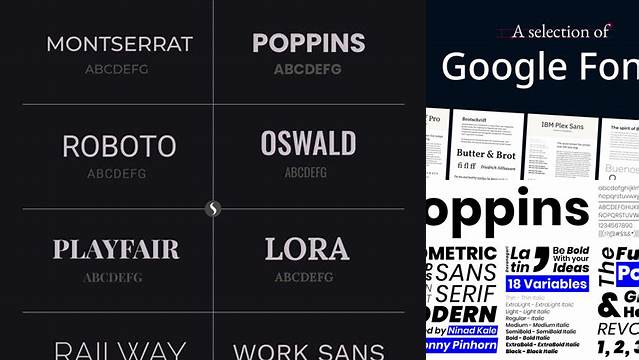
Top Google Fonts For Killer Typography
Hey guys! Ever wondered what makes some designs pop while others just... flop? A huge part of it is typography! Choosing the right font can make or break your design, and thankfully, Google Fonts has a treasure trove of amazing options. Let’s dive into some of the best Google Fonts for typography that'll help you create stunning visuals.
1. Serif Fonts for a Classic Look
When you're aiming for a timeless and sophisticated feel, serif fonts are your best friends. These fonts, characterized by the small strokes or “serifs” at the end of each character, evoke a sense of tradition and elegance. Best Google Fonts for typography often include standout serifs that can elevate your text from ordinary to extraordinary. Think about fonts like Times New Roman, but let’s explore Google’s offerings that bring a fresh twist to this classic style. Using serif fonts in headings and body text can provide a professional and readable experience, making your content more engaging.
Making Serif Fonts Work for You
To truly leverage the power of serif fonts, consider the context of your design. Are you working on a website for a law firm, a historical society, or a high-end fashion brand? Serif fonts can communicate the authority and sophistication needed for these industries. Experiment with different weights and styles to find the perfect match. Remember, the goal is to create a visual hierarchy that guides the reader through your content seamlessly. The best Google Fonts for typography in the serif category do just that – they help you tell your story with clarity and style.
Why Serif Fonts Still Matter
In a world dominated by sleek, sans-serif fonts, serif fonts hold their own by offering a unique sense of character. They're not just relics of the past; they're powerful tools that can add depth and personality to your designs. Don't be afraid to mix and match serif fonts with sans-serif fonts to create a balanced and visually appealing layout. When used thoughtfully, serif fonts can be a game-changer, ensuring your typography is both beautiful and functional. So, let’s explore which serif options from Google Fonts will help you nail that best Google Fonts for typography look.
2. Sans-Serif Fonts for Modern Designs
Sans-serif fonts are the workhorses of the modern web. Clean, minimalist, and incredibly versatile, they’re perfect for a wide range of projects. If you’re aiming for a contemporary and approachable vibe, sans-serif fonts are your go-to. The best Google Fonts for typography in the sans-serif category are those that offer excellent readability and a touch of personality. These fonts shine in both headings and body text, providing a sleek and consistent look. Choosing the right sans-serif font can make your website or design feel modern, clean, and professional.
Leveraging the Versatility of Sans-Serif Fonts
One of the greatest strengths of sans-serif fonts is their adaptability. They work seamlessly across various mediums, from websites and mobile apps to print materials and branding. The key is to select a font that aligns with your brand's identity and the overall message you want to convey. Whether you need something bold and impactful or subtle and elegant, there's a sans-serif font out there for you. Keep in mind that the best Google Fonts for typography provide a wide range of weights and styles, giving you the flexibility to create visual interest and hierarchy within your designs.
Sans-Serif: The Go-To for Digital Readability
In the digital world, readability is paramount. Sans-serif fonts excel in this area, thanks to their clear and straightforward letterforms. They render well on screens of all sizes, ensuring your text is legible and engaging. When you’re thinking about the best Google Fonts for typography for web design, sans-serif options should be at the top of your list. They’re not just about aesthetics; they’re about creating a user-friendly experience. So, let's take a look at some specific sans-serif fonts that can help you achieve that perfect balance of style and functionality.
3. Best Font Pairings on Google Fonts
Font pairings are like the dynamic duos of typography. Combining different fonts can add depth, contrast, and visual interest to your designs. But choosing the right pairings can be tricky. The best Google Fonts for typography often come alive when paired strategically. A classic combination is a serif font for headings and a sans-serif font for body text, or vice versa. This creates a clear hierarchy and makes your content easier to read and more engaging. Think of it as creating a harmonious balance between tradition and modernity.
The Art of Mixing and Matching Fonts
The key to successful font pairings lies in contrast and complementarity. You want fonts that have enough differences to create visual interest but also share some common characteristics to ensure they look cohesive. For example, you might pair a bold, impactful serif font with a light, airy sans-serif font. The best Google Fonts for typography are those that work well together, creating a balanced and visually appealing composition. Don’t be afraid to experiment, but always prioritize readability and clarity.
Real-World Examples of Great Font Pairings
To get a better sense of how font pairings work, let’s look at some practical examples. A popular combination is Montserrat (sans-serif) for headings and Roboto (sans-serif) for body text. This pairing provides a clean, modern look. Another great option is Playfair Display (serif) for headings and Open Sans (sans-serif) for body text, offering a blend of elegance and readability. Remember, the best Google Fonts for typography pairings are those that enhance your message and create a memorable visual experience. So, let’s explore some specific pairings that can take your design to the next level.
4. Roboto: The Versatile Workhorse
Roboto is one of Google's flagship fonts, and for good reason. This sans-serif font is incredibly versatile, making it a fantastic choice for a wide range of applications. If you're looking for the best Google Fonts for typography that can handle everything from headings to body text, Roboto should be on your radar. Its clean, geometric design ensures excellent readability on screens of all sizes, and its various weights and styles give you plenty of flexibility. Whether you're designing a website, an app, or print materials, Roboto can deliver a professional and modern look.
Why Roboto Stands Out
What sets Roboto apart is its ability to blend seamlessly into different design contexts. It's not overly stylized or trendy, which means it won't clash with your brand's identity. Instead, it provides a solid foundation upon which you can build your design. The best Google Fonts for typography are those that prioritize functionality without sacrificing aesthetics, and Roboto excels in this regard. Its open forms and natural reading rhythm make it a pleasure to read, ensuring your audience stays engaged with your content.
Getting the Most Out of Roboto
To truly appreciate the versatility of Roboto, experiment with its different weights and styles. Use the bold weights for headings to create impact, and the lighter weights for body text to ensure readability. You can also pair Roboto with other fonts to create visual interest. A classic combination is Roboto for body text and a serif font like Merriweather for headings. When used thoughtfully, Roboto can be the backbone of your typography, helping you create a cohesive and professional design. So, when you're thinking about the best Google Fonts for typography, remember Roboto – it's a reliable and stylish choice.
5. Open Sans: The Reader-Friendly Choice
Open Sans is another standout sans-serif font in the Google Fonts library, known for its exceptional readability. If you prioritize a clean, friendly, and accessible typeface, Open Sans is a top contender. For the best Google Fonts for typography that aim to keep readers engaged, Open Sans's open forms and neutral appearance make it an excellent option for body text. Its design focuses on clarity and legibility, making it a go-to choice for websites, apps, and print materials alike. When you want your content to be easily digestible, Open Sans ensures your message gets across clearly.
The Secret to Open Sans’s Readability
Open Sans was specifically designed with readability in mind, which is why it works so well in a variety of contexts. Its letterforms are clear and distinct, making it easy to read even at small sizes. This is crucial for web design, where text needs to be legible on different screen sizes and resolutions. The best Google Fonts for typography understand the importance of accessibility, and Open Sans delivers on this front. Its neutral tone also means it pairs well with many other fonts, giving you plenty of flexibility in your designs.
Maximizing the Impact of Open Sans
To make the most of Open Sans, consider using it in body text where readability is paramount. Its clean lines and open shapes ensure that your content is easy on the eyes. You can also use Open Sans for headings to maintain a consistent look throughout your design. If you want to create contrast, pair Open Sans with a more decorative font for headings. Remember, the best Google Fonts for typography are those that enhance your message without distracting from it. Open Sans achieves this balance beautifully, making it a reliable choice for any project.
6. Lato: The Modern and Elegant Option
Lato is a sans-serif font that strikes a perfect balance between modernity and elegance. With its semi-rounded details, Lato conveys a warm and friendly vibe while maintaining a professional look. If you’re searching for the best Google Fonts for typography that offer a contemporary feel without sacrificing readability, Lato is an excellent choice. Its versatility makes it suitable for a wide range of applications, from websites and marketing materials to presentations and branding. Lato’s subtle personality adds a touch of sophistication to any design.
The Unique Charm of Lato
What makes Lato stand out is its attention to detail. The semi-rounded letterforms give it a softer, more approachable feel compared to other sans-serif fonts. This makes Lato a great option for brands that want to convey a sense of friendliness and professionalism. The best Google Fonts for typography often have subtle nuances that make them unique, and Lato is no exception. Its clean lines and balanced proportions ensure readability, while its gentle curves add a touch of personality.
Using Lato to Its Full Potential
Lato’s versatility means you can use it in a variety of ways. It works well for both headings and body text, making it a reliable choice for creating a cohesive design. You can also pair Lato with other fonts to create contrast and visual interest. For example, Lato pairs beautifully with serif fonts like Merriweather or Playfair Display. The best Google Fonts for typography are those that adapt to your design needs, and Lato’s flexibility makes it a valuable addition to your font toolkit. So, if you’re looking for a modern and elegant font that’s easy to read, Lato is definitely worth considering.
7. Montserrat: The Bold and Geometric Choice
Montserrat is a sans-serif font with a strong geometric design, inspired by the urban typography of Buenos Aires. Its bold and modern look makes it a popular choice for headings, logos, and branding. For those seeking the best Google Fonts for typography that command attention, Montserrat's clean lines and strong presence make it a standout option. Its distinct character adds a touch of sophistication to any project, making it ideal for websites, posters, and marketing materials. If you want your typography to make a statement, Montserrat delivers with style.
What Makes Montserrat Stand Out
Montserrat's geometric structure gives it a contemporary and impactful feel. Its letterforms are bold and well-defined, ensuring excellent readability even at smaller sizes. This font’s distinct personality sets it apart from more neutral sans-serif options, making it perfect for projects that need a touch of flair. The best Google Fonts for typography often have a unique identity, and Montserrat’s urban-inspired design gives it a strong visual presence. Its versatility allows it to work well in both digital and print contexts.
Leveraging Montserrat’s Boldness
To truly leverage Montserrat’s impact, use it strategically in your designs. Its bold nature makes it ideal for headings and titles, where it can capture the reader’s attention. Montserrat also works well for logos and branding materials, helping you create a strong visual identity. When used in body text, it’s best to pair it with a lighter font to ensure readability. Remember, the best Google Fonts for typography are those that enhance your message, and Montserrat’s bold character can add a touch of sophistication to your designs. So, if you’re looking for a font that’s both modern and impactful, Montserrat is an excellent choice.
8. Playfair Display: The Elegant Serif Option
Playfair Display is a serif font that exudes elegance and sophistication. Inspired by the transitional designs of the late 18th century, this font is perfect for headings, titles, and other display purposes where a touch of refinement is desired. For those in pursuit of the best Google Fonts for typography that bring a classic yet modern feel, Playfair Display’s high contrast and delicate serifs make it a standout choice. Its graceful letterforms add a sense of luxury to any project, making it ideal for websites, magazines, and branding materials.
The Allure of Playfair Display
Playfair Display’s beauty lies in its attention to detail. Its high contrast between thick and thin strokes gives it a dynamic and elegant appearance. This font is particularly well-suited for large sizes, where its intricate details can truly shine. The best Google Fonts for typography often have a timeless quality, and Playfair Display certainly fits the bill. Its classic influences combined with a modern sensibility make it a versatile option for a variety of design projects.
Maximizing Playfair Display’s Elegance
To make the most of Playfair Display, use it in contexts where elegance and sophistication are paramount. It works beautifully for headings, titles, and other display elements, where its refined letterforms can capture the reader’s attention. Playfair Display also pairs well with sans-serif fonts for body text, creating a balanced and visually appealing contrast. Remember, the best Google Fonts for typography are those that enhance your message, and Playfair Display’s elegance can add a touch of sophistication to your designs. So, if you’re looking for a serif font that’s both classic and modern, Playfair Display is an excellent choice.
9. Merriweather: The Readability-Focused Serif
Merriweather is a serif font specifically designed to be highly readable on screens. Its sturdy letterforms and slightly condensed design make it an excellent choice for body text, ensuring a pleasant reading experience. If you're seeking the best Google Fonts for typography with a focus on readability, Merriweather stands out as a reliable and versatile option. Its comfortable rhythm and clear character shapes make it ideal for websites, blogs, and any project where long-form content is key. Merriweather combines the warmth of a serif with the practicality needed for digital text.
The Secret to Merriweather's Readability
Merriweather's design prioritizes legibility, making it a go-to font for extended reading. Its robust letterforms and ample spacing ensure that each character is distinct and easy to recognize. This is crucial for maintaining reader engagement and preventing eye strain. The best Google Fonts for typography understand the importance of user experience, and Merriweather excels in delivering a comfortable reading experience. Its classic serif style also adds a touch of sophistication to your text.
Optimizing Merriweather for Your Content
To maximize Merriweather's effectiveness, use it primarily for body text where readability is paramount. Its slightly condensed design allows you to fit more text on a line without sacrificing legibility. You can also pair Merriweather with sans-serif fonts for headings to create a balanced contrast. Remember, the best Google Fonts for typography are those that enhance your message, and Merriweather’s readability can help your content shine. So, if you’re looking for a serif font that’s both readable and stylish, Merriweather is an excellent choice.
10. Raleway: The Stylish Sans-Serif Choice
Raleway is a sans-serif font that combines elegance with functionality. Initially designed as a single thin weight, it has since expanded into a full family of weights, making it incredibly versatile. If you're searching for the best Google Fonts for typography that offer a sleek and modern aesthetic, Raleway is a top contender. Its refined letterforms and clean lines make it suitable for a variety of applications, from logos and headings to body text. Raleway's stylish appearance adds a touch of sophistication to any design.
The Allure of Raleway's Style
Raleway's elegant design sets it apart from more utilitarian sans-serif fonts. Its refined letterforms and subtle details give it a polished and sophisticated appearance. This makes it a great choice for brands that want to convey a sense of style and modernity. The best Google Fonts for typography often have a distinct personality, and Raleway’s elegance makes it a standout option. Its versatility allows it to work well in both digital and print contexts.
Maximizing Raleway's Impact
To truly leverage Raleway's style, use it strategically in your designs. Its elegant appearance makes it ideal for logos and headings, where it can capture the reader’s attention. Raleway also works well in body text, especially in its lighter weights, providing a clean and readable experience. You can pair Raleway with serif fonts for a balanced contrast, or use it throughout your design for a cohesive and modern look. Remember, the best Google Fonts for typography are those that enhance your message, and Raleway’s stylish appearance can elevate your designs. So, if you’re looking for a sans-serif font that’s both elegant and functional, Raleway is an excellent choice.
11. Best Google Fonts for Headlines
When it comes to grabbing attention, your headlines are the first thing readers see. Using the best Google Fonts for typography in your headlines can make a huge difference in how engaging your content appears. You need fonts that are bold, clear, and reflect the tone of your message. Think about fonts that command attention without being overwhelming, and that pair well with the body text you've chosen. A strong headline font can draw readers in and entice them to explore further.
What Makes a Great Headline Font?
Headline fonts need to be attention-grabbing, but they also need to be readable. The best Google Fonts for typography in this category balance style with clarity. Bold serifs or clean sans-serifs often work well, but the right choice depends on your overall design aesthetic. A great headline font should complement your brand and the message you’re trying to convey. It should also create a visual hierarchy, making it clear that the headline is the most important element on the page.
Top Google Fonts for Headlines
Some standout options for headlines include Playfair Display for a touch of elegance, Montserrat for a modern and geometric feel, and Raleway for a sleek and stylish look. These fonts have a distinct character that can make your headlines pop. Pairing these with a readable body text font like Open Sans or Merriweather creates a balanced and engaging layout. Remember, the best Google Fonts for typography are those that work together harmoniously to deliver your message effectively. So, choosing the right headline font is a crucial step in creating a visually appealing and impactful design.
12. Best Google Fonts for Body Text
Body text is the heart of your content, and choosing the right font is crucial for readability and user experience. The best Google Fonts for typography for body text are those that are easy on the eyes and don’t distract from the message. Clarity and legibility are key, so you’ll want to look for fonts with clean lines and ample spacing. A well-chosen body text font can make your content more inviting and encourage readers to stick around.
Key Considerations for Body Text Fonts
The primary goal for body text is readability. Fonts with simple, clear letterforms and a comfortable rhythm are ideal. Sans-serif fonts like Open Sans and Roboto are popular choices for their clean and modern look, but some serif fonts like Merriweather also work well. The best Google Fonts for typography in this category prioritize the reader’s experience, ensuring that the text is easy to scan and comprehend. Think about the overall tone of your content and choose a font that complements it.
Top Google Fonts for Body Text Readability
Open Sans is a standout option for its exceptional readability, while Roboto offers a versatile and modern feel. Merriweather is a great serif choice, providing a touch of warmth and tradition while remaining highly legible. These fonts are designed to be easy on the eyes, making them perfect for long-form content. Pairing these with a bolder headline font creates a clear visual hierarchy and enhances the overall design. The best Google Fonts for typography are those that work together to create a cohesive and engaging reading experience. So, investing time in choosing the right body text font is well worth the effort.
13. Google Fonts for a Minimalist Design
Minimalist design is all about simplicity and clarity, and your typography should reflect that. The best Google Fonts for typography in minimalist designs are clean, understated, and highly readable. You want fonts that enhance the content without overwhelming it. Think about sans-serif fonts with simple geometric shapes and a neutral tone. The goal is to create a visual experience that is both elegant and functional.
The Essence of Minimalist Typography
In minimalist design, less is more. Fonts should be clean, simple, and easy to read. Sans-serif fonts are often the best choice, as they tend to have a more modern and uncluttered appearance. The best Google Fonts for typography for minimalist designs prioritize readability and clarity, ensuring that the content takes center stage. A minimalist font should complement the overall design without drawing too much attention to itself.
Top Google Fonts for Minimalist Projects
Open Sans, Roboto, and Lato are excellent choices for minimalist designs. These fonts have clean lines, neutral tones, and excellent readability. They work well in both headings and body text, making them versatile options for a variety of projects. Pairing these fonts with ample whitespace and a limited color palette can create a stunning minimalist design. Remember, the best Google Fonts for typography are those that enhance your message without adding unnecessary visual clutter. So, choosing the right font is crucial for achieving a clean and sophisticated minimalist look.
14. Google Fonts for a Corporate Website
For a corporate website, typography plays a crucial role in conveying professionalism and trustworthiness. The best Google Fonts for typography for this purpose are those that are clean, readable, and project a sense of authority. You want fonts that inspire confidence and make your content easy to digest. Think about fonts that strike a balance between modernity and tradition, and that align with your brand’s identity.
The Importance of Professional Typography
Typography on a corporate website should be clear, concise, and professional. Fonts should be easy to read on various devices and screen sizes. Sans-serif fonts are often a safe bet, but some classic serif fonts can also work well. The best Google Fonts for typography for corporate websites prioritize readability and legibility, ensuring that your message gets across clearly. Consistency is key, so choose a limited number of fonts and use them throughout your site.
Recommended Fonts for Corporate Use
Roboto, Open Sans, and Lato are excellent choices for a corporate website. These fonts have clean lines, professional tones, and excellent readability. Merriweather is a good serif option, providing a touch of tradition while maintaining a modern feel. Pairing these fonts strategically can create a polished and trustworthy appearance. The best Google Fonts for typography are those that enhance your brand’s credibility, so choose fonts that reflect your company’s values and mission.
15. Google Fonts for a Blog
Typography on a blog should be engaging and easy to read, encouraging visitors to stay and explore your content. The best Google Fonts for typography for blogs are those that balance readability with personality. You want fonts that make your text inviting and enjoyable to read, while also reflecting the tone and style of your blog. Think about fonts that create a comfortable reading experience and complement your visual aesthetic.
Creating an Engaging Reading Experience
The key to blog typography is readability. Fonts should be clear and easy on the eyes, especially for long-form content. Sans-serif fonts are often a popular choice, but some serif fonts can also work well. The best Google Fonts for typography for blogs prioritize the reader’s comfort, ensuring that the text is easy to scan and comprehend. Consistency in font usage is important for a professional look.
Top Font Choices for Bloggers
Open Sans and Merriweather are great choices for body text, offering excellent readability. Montserrat and Raleway can be used for headings to add visual interest. Pairing these fonts strategically can create a balanced and engaging layout. The best Google Fonts for typography are those that enhance your content and encourage readers to explore further. So, choosing the right fonts is a crucial step in creating a successful blog.
16. Fonts for a Creative Portfolio
When showcasing your work in a creative portfolio, typography should complement and enhance your visual content. The best Google Fonts for typography for portfolios are those that are stylish and readable, reflecting your unique aesthetic. You want fonts that highlight your designs without overpowering them. Think about fonts that convey your personality and create a memorable impression.
Typography That Showcases Your Style
The fonts you choose for your portfolio should reflect your design sensibilities. Clean and modern sans-serif fonts like Lato and Raleway can create a sophisticated and professional look. More distinctive fonts like Playfair Display or Montserrat can add personality and flair. The best Google Fonts for typography for portfolios are those that complement your work and enhance the overall presentation.
Portfolio-Friendly Font Combinations
Pairing a clean sans-serif font for body text with a more stylized font for headings can create a balanced and visually appealing design. Roboto for body text and Montserrat for headings is a classic combination. Open Sans and Playfair Display also work well together. The best Google Fonts for typography are those that work harmoniously to present your work in the best possible light. So, choosing the right fonts is an essential part of creating a compelling portfolio.
17. Best Fonts for E-commerce Websites
Typography on an e-commerce website should be clear, trustworthy, and user-friendly. The best Google Fonts for typography for e-commerce sites are those that facilitate easy navigation and provide a seamless shopping experience. You want fonts that make product descriptions and calls to action clear and compelling. Think about fonts that inspire confidence and encourage conversions.
Optimizing Typography for Conversions
Readability is key on an e-commerce site. Fonts should be clear and easy to scan, allowing visitors to quickly find the information they need. Open Sans and Roboto are excellent choices for body text. Montserrat can be used for headings to highlight product names and categories. The best Google Fonts for typography for e-commerce sites prioritize user experience, ensuring that the site is easy to navigate and shop.
Fonts That Build Trust and Credibility
Choosing the right fonts can also help build trust with your customers. Professional and clean fonts convey a sense of reliability and trustworthiness. Lato and Raleway are good options for creating a polished and credible look. The best Google Fonts for typography are those that enhance your brand’s reputation and inspire confidence in your products and services.
18. Google Fonts for Mobile Apps
Typography in mobile apps must prioritize readability and user experience on small screens. The best Google Fonts for typography for mobile apps are those that are clear, concise, and easy to read on various devices. You want fonts that facilitate navigation and make the app user-friendly. Think about fonts that optimize the mobile viewing experience.
Ensuring Readability on Mobile Devices
Clear and legible fonts are essential for mobile apps. Roboto and Open Sans are excellent choices, as they are designed to be readable on screens of all sizes. Lato is another good option, offering a clean and modern look. The best Google Fonts for typography for mobile apps prioritize legibility, ensuring that users can easily navigate and interact with the app.
Font Choices for Mobile UI Design
The fonts you choose should complement the overall design of your app. Clean and simple sans-serif fonts are often the best choice for mobile UI, as they provide a modern and uncluttered look. Using a consistent font throughout the app can create a cohesive and professional feel. The best Google Fonts for typography are those that enhance the app’s usability and aesthetic appeal.
19. Fonts for Print Materials
When designing print materials, typography needs to be clear, legible, and visually appealing. The best Google Fonts for typography for print are those that translate well from screen to paper. You want fonts that look professional and enhance the readability of your printed content. Think about fonts that suit the style and purpose of your materials.
Typography That Works in Print
Fonts for print materials should be clear and easy to read, even in small sizes. Serif fonts like Merriweather can work well for body text, providing a traditional and readable look. Sans-serif fonts like Open Sans and Lato are also good options, offering a modern and clean feel. The best Google Fonts for typography for print are those that maintain their clarity and readability on paper.
Choosing the Right Fonts for Brochures and Flyers
The fonts you choose for brochures and flyers should reflect the tone and message of your content. Bold fonts like Montserrat can be used for headings to capture attention. Pairing a serif font for body text with a sans-serif font for headings can create a balanced and visually appealing design. The best Google Fonts for typography are those that enhance your message and create a professional impression.
20. Best Google Fonts for Resumes
Your resume is a crucial document, and the typography you use can significantly impact how it's perceived. The best Google Fonts for typography for resumes are those that are professional, readable, and convey attention to detail. You want fonts that present you in the best possible light, highlighting your qualifications and experience.
Typography That Makes a Good Impression
The fonts you choose for your resume should be clear, concise, and easy to read. Serif fonts like Merriweather can convey a sense of professionalism and tradition, while sans-serif fonts like Roboto and Open Sans offer a modern and clean look. The best Google Fonts for typography for resumes prioritize readability and legibility, ensuring that your resume is easy to scan and comprehend.
Fonts That Highlight Your Qualifications
Consistency in font usage is important on a resume. Choose a limited number of fonts and use them throughout the document. Using bold fonts for headings and key information can help draw the reader’s eye. The best Google Fonts for typography are those that enhance your qualifications and create a positive impression.
21. Pairing Fonts for Different Moods
Font pairings can set different moods and tones for your designs. The best Google Fonts for typography pairings create visual harmony while effectively conveying the desired emotional response. Whether you're aiming for elegance, playfulness, professionalism, or modernity, the right font combination can make all the difference.
Creating Emotional Resonance with Typography
Consider the message you want to convey and select fonts that align with it. For example, a serif and sans-serif pairing like Playfair Display and Montserrat can evoke a sense of classic sophistication. A pairing like Lato and Oswald can create a modern, clean feel. The best Google Fonts for typography pairings are those that work together to enhance the emotional impact of your design.
Matching Fonts to Your Design's Purpose
The purpose of your design should guide your font choices. For corporate communications, a professional and readable pairing like Open Sans and Roboto is ideal. For creative projects, you might choose a more expressive combination like Raleway and Lora. The best Google Fonts for typography are those that support your design’s goals and resonate with your target audience.
22. The Impact of Font Size and Spacing
Font size and spacing are crucial elements in typography that significantly impact readability and visual appeal. The best Google Fonts for typography can be undermined if not used with appropriate sizing and spacing. Proper attention to these details ensures your text is easy to read and visually engaging.
Optimizing Readability Through Size and Spacing
The ideal font size depends on the context, but generally, a body text size of 16-18 pixels works well for web content. Line height (or leading) should be about 1.5 times the font size for comfortable reading. Letter spacing (or tracking) can also be adjusted to improve legibility. The best Google Fonts for typography perform optimally when these elements are carefully considered.
Creating Visual Hierarchy with Size and Spacing
Using different font sizes helps create a visual hierarchy, guiding readers through your content. Headings should be larger and bolder than body text. Spacing can also be used to group related content and create clear sections. The best Google Fonts for typography can be even more effective when used with a thoughtful approach to size and spacing.
23. Using Weights and Styles Effectively
Font weights and styles, such as bold, italic, and light, offer versatility in your designs. The best Google Fonts for typography come in various weights and styles, allowing you to create emphasis and visual interest. Effective use of these elements enhances readability and adds depth to your typography.
Adding Emphasis and Hierarchy
Bold text is great for highlighting important information and creating emphasis. Italic text can be used for quotes or to add a touch of elegance. Different weights can help create a visual hierarchy, distinguishing headings from body text. The best Google Fonts for typography offer a range of weights and styles to meet your design needs.
Maintaining Consistency and Balance
While weights and styles can be powerful tools, it’s important to use them sparingly and consistently. Overusing bold or italic text can make your design look cluttered and unprofessional. Striking a balance is key to creating a visually appealing and readable design. The best Google Fonts for typography are those you can use consistently across your projects to maintain a cohesive brand identity.
24. Choosing Fonts for Different Languages
When designing for multilingual audiences, selecting fonts that support different languages is crucial. The best Google Fonts for typography for multilingual projects offer character sets that accommodate various scripts and languages. Ensuring your font choices support your target languages enhances readability and cultural sensitivity.
Supporting Global Readership
Many Google Fonts support Latin, Cyrillic, and Greek character sets, making them versatile for multilingual designs. When selecting fonts, check their language support to ensure they include the characters you need. Using fonts that properly render different languages demonstrates respect for your audience. The best Google Fonts for typography are those that help you communicate effectively with diverse audiences.
Maintaining Visual Harmony Across Languages
It's important to choose fonts that maintain visual harmony across different languages. If possible, select fonts that have been specifically designed to work well together. This ensures a consistent and professional look, regardless of the language. The best Google Fonts for typography for multilingual designs are those that help you create a cohesive and engaging experience for all users.
25. Google Fonts and SEO: Best Practices
The typography you use can indirectly affect your website's SEO. The best Google Fonts for typography can enhance user experience, leading to longer visit durations and lower bounce rates, which are positive signals for search engines. Choosing readable fonts and optimizing their loading can improve your site’s performance.
Enhancing User Experience for SEO
A website with readable and visually appealing fonts will keep visitors engaged longer. This reduces bounce rates and increases time on site, both important SEO metrics. The best Google Fonts for typography help you create a user-friendly website that search engines will recognize and reward.
Optimizing Font Loading for Site Speed
Slow-loading fonts can negatively impact your site’s speed, which is a crucial SEO factor. Use font-display properties to ensure text remains visible while fonts load. Choosing fewer font weights and styles can also reduce file sizes. The best Google Fonts for typography should be implemented in a way that doesn’t compromise your site’s performance.
26. How to Embed Google Fonts in Your Website
Embedding Google Fonts in your website is a straightforward process that can significantly enhance your site’s typography. The best Google Fonts for typography are easily integrated into your website using a few simple methods. Properly embedding fonts ensures they display correctly across all browsers and devices.
Using the Google Fonts API
The most common method is to link to the Google Fonts API in your HTML. This allows you to specify the fonts you want to use, and Google will handle the loading and delivery. This method is simple and efficient, ensuring your fonts are always up-to-date. The best Google Fonts for typography are readily accessible through this API.
Self-Hosting Google Fonts
Another option is to download the font files and host them on your own server. This gives you more control over loading and caching, but requires more technical setup. Self-hosting can potentially improve site speed if done correctly. However, the Google Fonts API is generally the easiest and most reliable option. The best Google Fonts for typography can be used with either method, depending on your preferences and technical skills.
27. Avoiding Common Typography Mistakes
Even with the best Google Fonts for typography, common mistakes can undermine your designs. Overusing fonts, neglecting readability, and ignoring visual hierarchy are some pitfalls to avoid. Paying attention to these details will help you create professional and effective typography.
Font Overload: Less is More
Using too many fonts can make your design look cluttered and unprofessional. Stick to a maximum of three fonts, and often two is sufficient. Consistency in font usage is key to creating a cohesive look. The best Google Fonts for typography are most effective when used thoughtfully and sparingly.
Prioritizing Readability and Legibility
Readability should always be a top priority. Choose fonts that are easy to read in various sizes and contexts. Avoid overly decorative fonts for body text, and ensure sufficient contrast between text and background. The best Google Fonts for typography are those that enhance the reading experience.
28. Accessibility Considerations for Typography
Accessible typography ensures your content is readable for everyone, including users with visual impairments. The best Google Fonts for typography are those that meet accessibility guidelines, ensuring your designs are inclusive and user-friendly. Paying attention to contrast, size, and legibility is crucial.
Contrast is Key
Ensure there is sufficient contrast between your text and background colors. The WCAG (Web Content Accessibility Guidelines) recommend a contrast ratio of at least 4.5:1 for normal text. This helps users with low vision read your content more easily. The best Google Fonts for typography are most effective when combined with accessible color choices.
Font Size and Spacing for Readability
Use a font size that is large enough to read comfortably, and provide adequate line height and letter spacing. Avoid using small font sizes, as these can be difficult for many users to read. The best Google Fonts for typography are designed to be legible, but proper sizing and spacing are essential for accessibility.
29. Google Fonts and Branding: Staying Consistent
Your brand's typography should be consistent across all platforms and materials. The best Google Fonts for typography can help you establish a strong brand identity. Choosing a limited set of fonts and using them consistently creates a professional and recognizable brand presence.
Font Choices That Reflect Your Brand
Select fonts that align with your brand's personality and values. Professional and reliable brands might choose clean sans-serif fonts like Roboto or Open Sans. Creative brands might opt for more expressive fonts like Raleway or Montserrat. The best Google Fonts for typography are those that enhance your brand’s message and create a cohesive identity.
Consistency Across All Touchpoints
Use your chosen fonts consistently across your website, marketing materials, social media, and any other touchpoints. This helps build brand recognition and creates a professional impression. The best Google Fonts for typography are most effective when they are used as a consistent element of your brand identity.
30. Future Trends in Web Typography
Web typography is constantly evolving, with new trends and technologies emerging. Staying informed about these trends can help you create cutting-edge designs. The best Google Fonts for typography are those that adapt to future web standards and user expectations.
Variable Fonts: Flexibility and Performance
Variable fonts offer greater flexibility and performance compared to traditional font files. They allow you to adjust font weights, styles, and other characteristics within a single file. This can significantly reduce file sizes and improve site speed. The best Google Fonts for typography are increasingly available as variable fonts.
The Rise of Customization and Personalization
Personalized typography is becoming more common, allowing websites to tailor font choices to individual users. This can enhance user experience and engagement. Keeping up with these trends can help you create more innovative and effective designs. The best Google Fonts for typography will continue to adapt to these evolving user expectations, providing designers with the tools they need to stay ahead.
So, there you have it, guys! A deep dive into the best Google Fonts for typography. Whether you're designing a website, a blog, or even a resume, choosing the right fonts can make a world of difference. Happy designing!